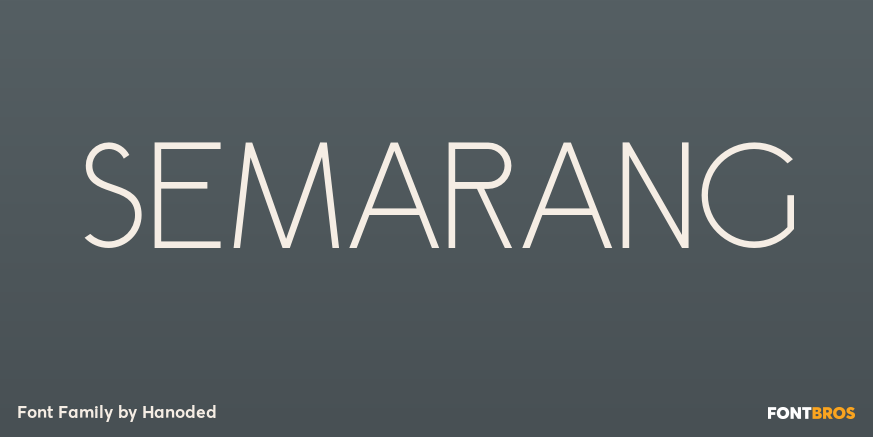
About Semarang
Semarang is a stylish, all caps Art Deco font. It is not a recreation of a particular typeface; merely my salute to a bygone era and to the birthplace of my father in law, who recently passed away. Semarang comes with all diacritics.